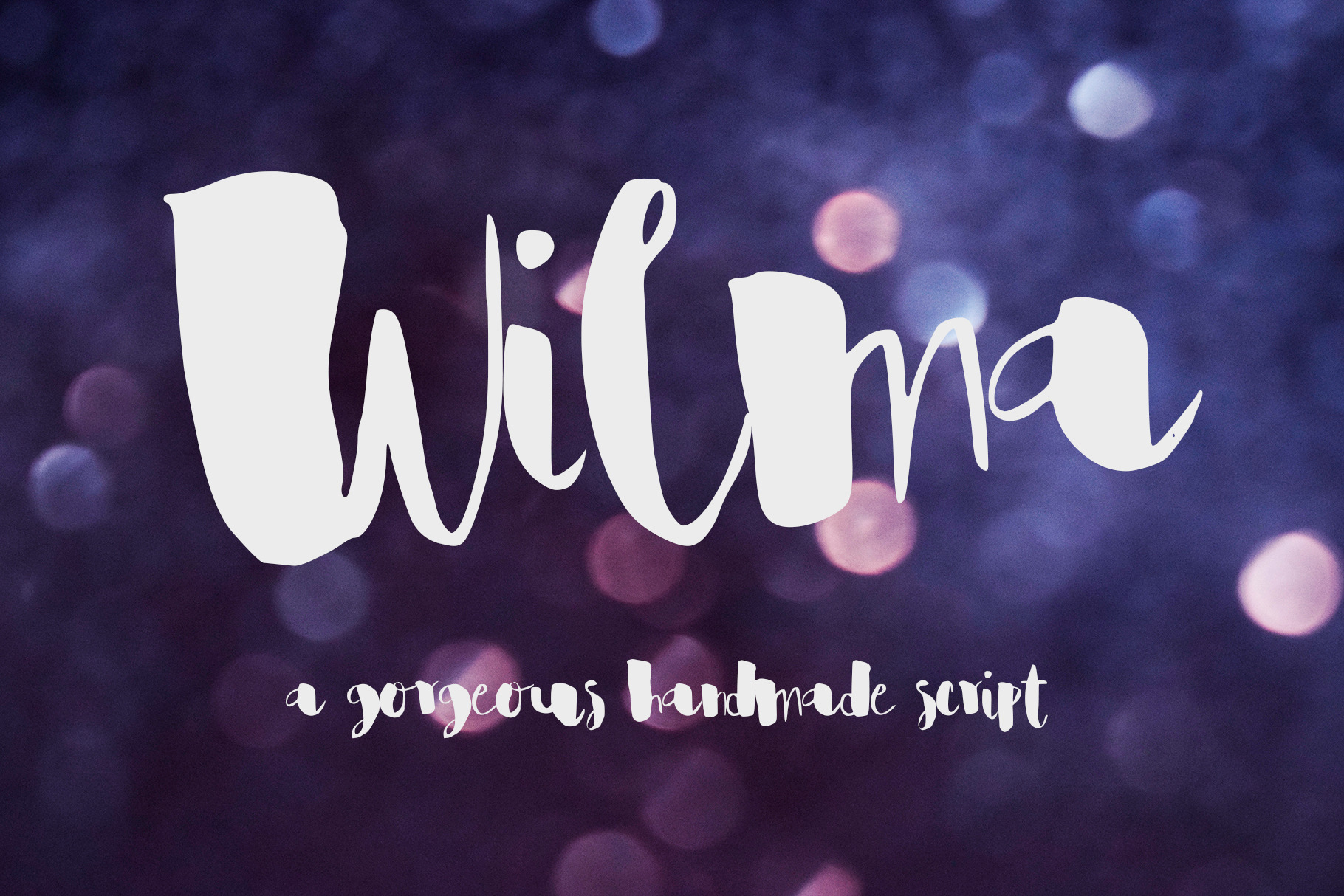
Wilma Font
Introducing Wilma, a gorgeous handwritten font.💗 A lovely script with biggish curves. Perfect for any calligraphic and logo designs, birthday and wedding invitations.
Wilma font contains upper & lowercase characters and numbers.